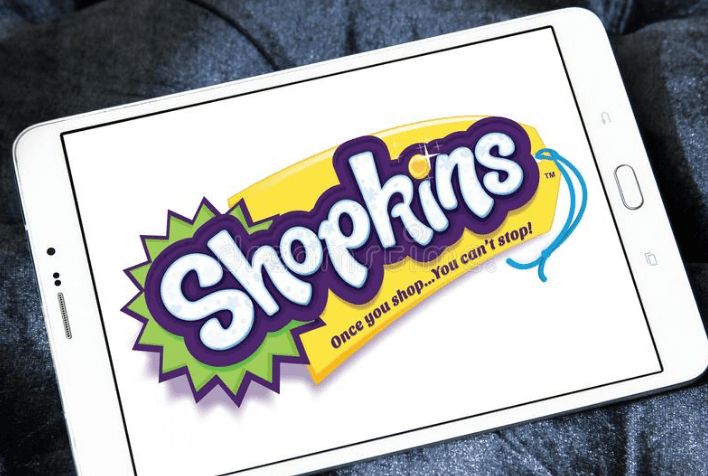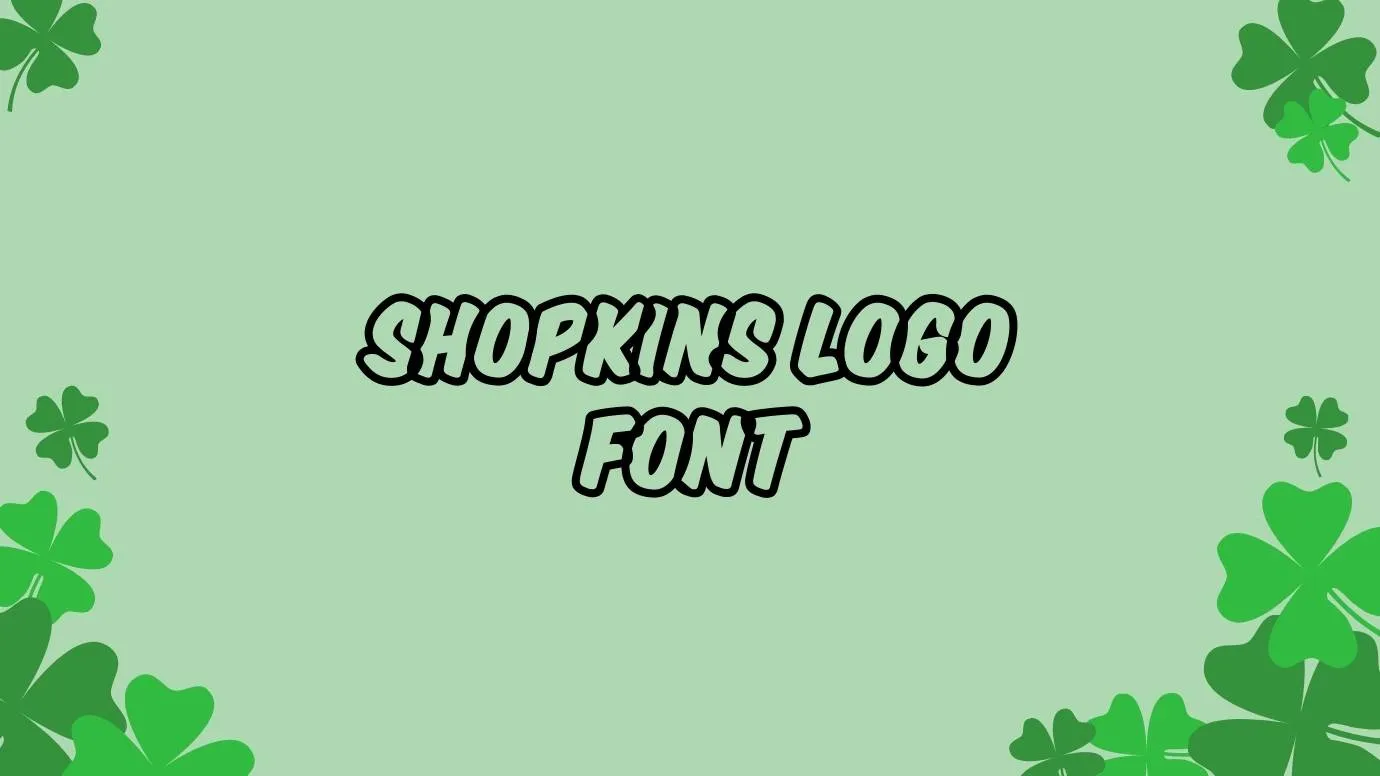
Shopkins Logo Font Family is very unique and attractive and it is noticed by many designers. There were probably used hand-made customize letterings for the logo title that is very similar to two typefaces. The one font is Mr. Sunshine typeface created by Docoxy Designs, however, the other is Rakoon that was designed by Mans Greback.
Features of Shopkins Logo Font
- It is providing sold and bold characters, which can grant a stylish look to your headlines and titles. So, you can perfectly utilize this font for creating your website headings, product titlings, Newspaper, and Magazines headings, document headers and footers, quotations, Store/Restaurant names, and many more.
- This typeface is also used in a wide range of designs and you can create amazing logo designs with the help of this font.
- The designer created this font with very beautiful strokes which makes this font suitable for game titlings, fashion-related web designs, greeting cards, cosmetic printings, movie posters, social media posts, advertisements, banners, and so on.
Is Shopkins Logo a good font?
It is very understandable on any size of text and provides clear readability to any display projects so, you can use it for your logo designs, posters, book covers, headlines, and titles as well as logos, posters, printing projects, quotes, and many more.
What is the closest font to the Shopkins Logo font?
Can I use Shopkins Logo font for logo design?
Yes, without any hesitation, it has a good taste of design and you can use this taste in your logos same as the Moose Toys Company.